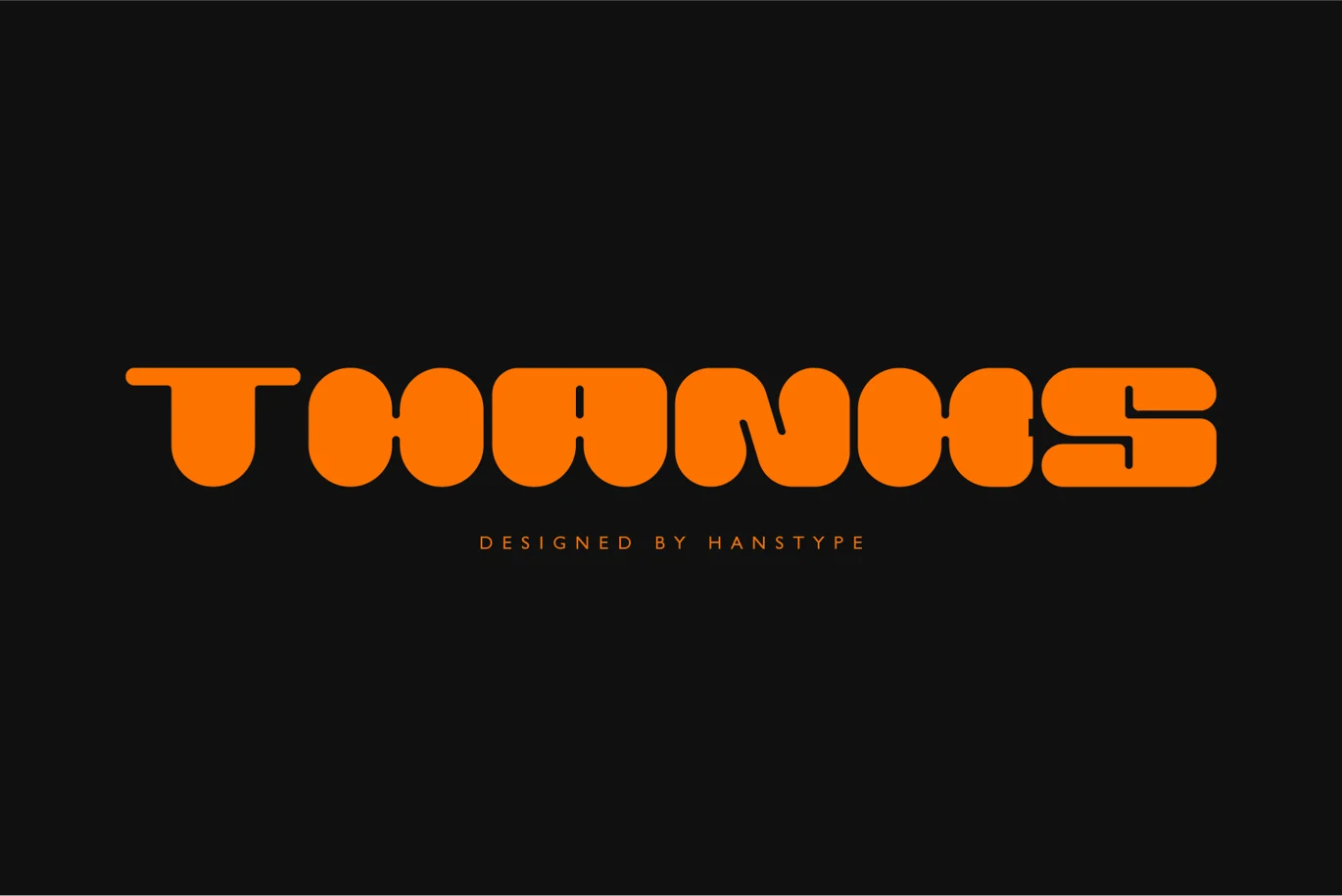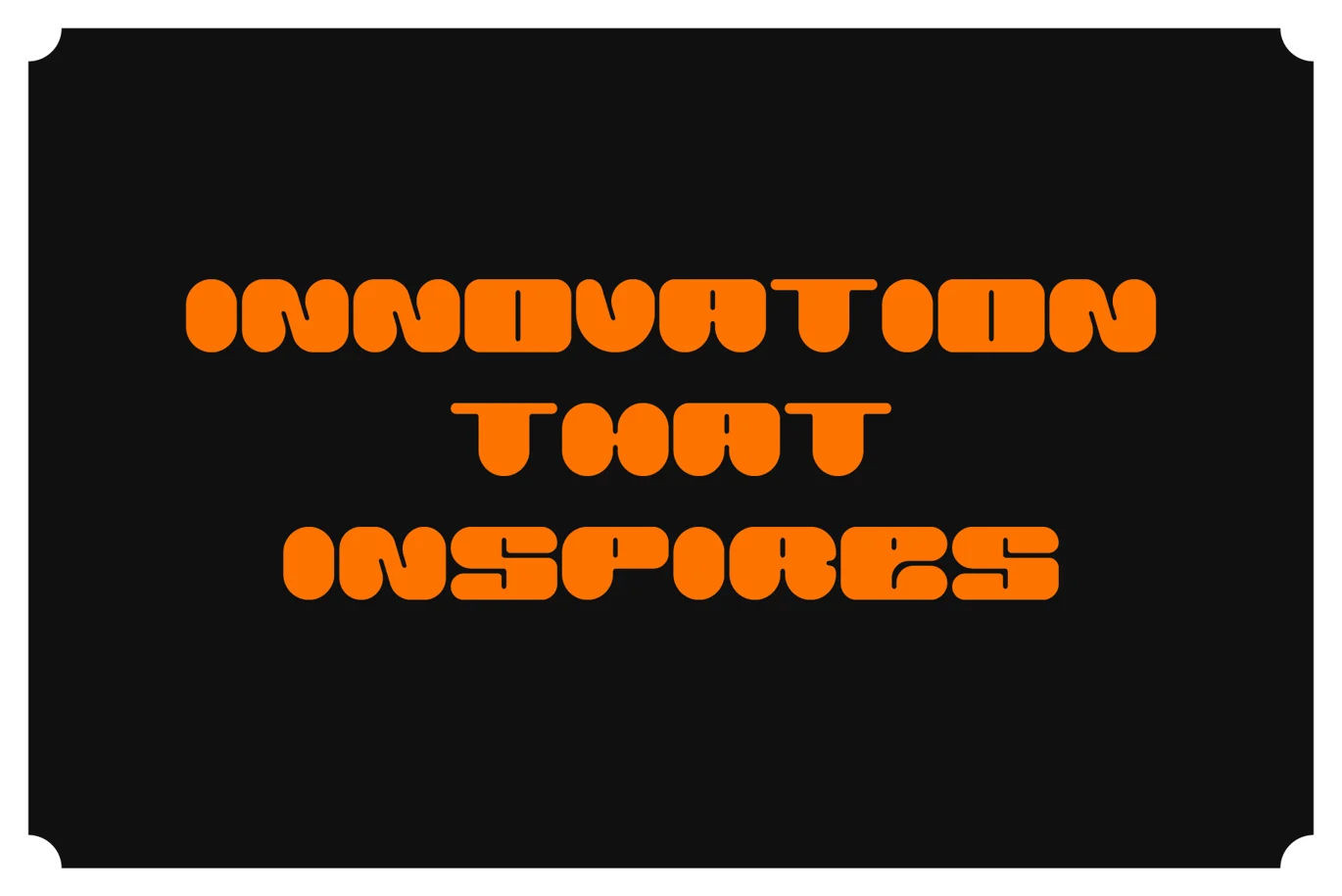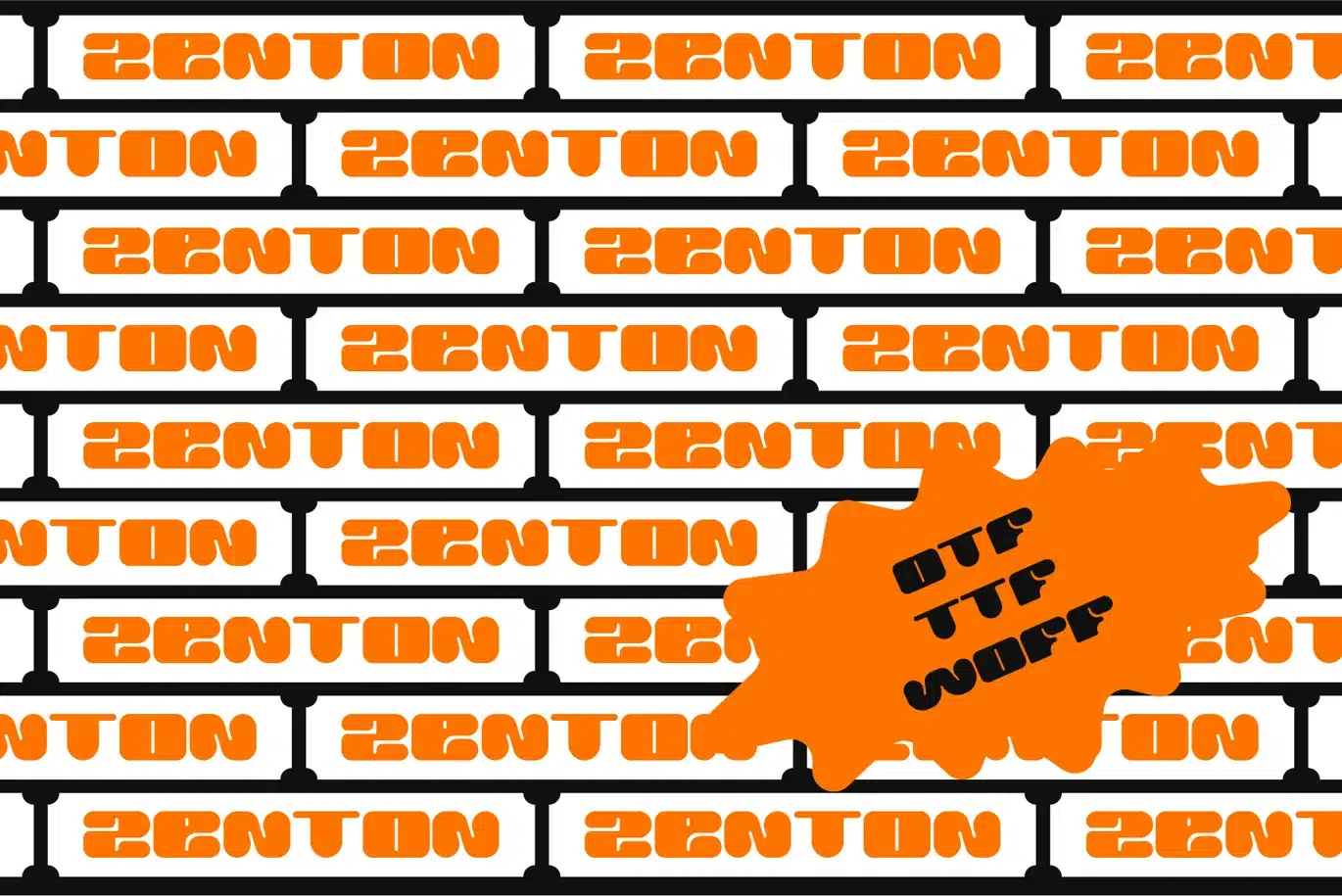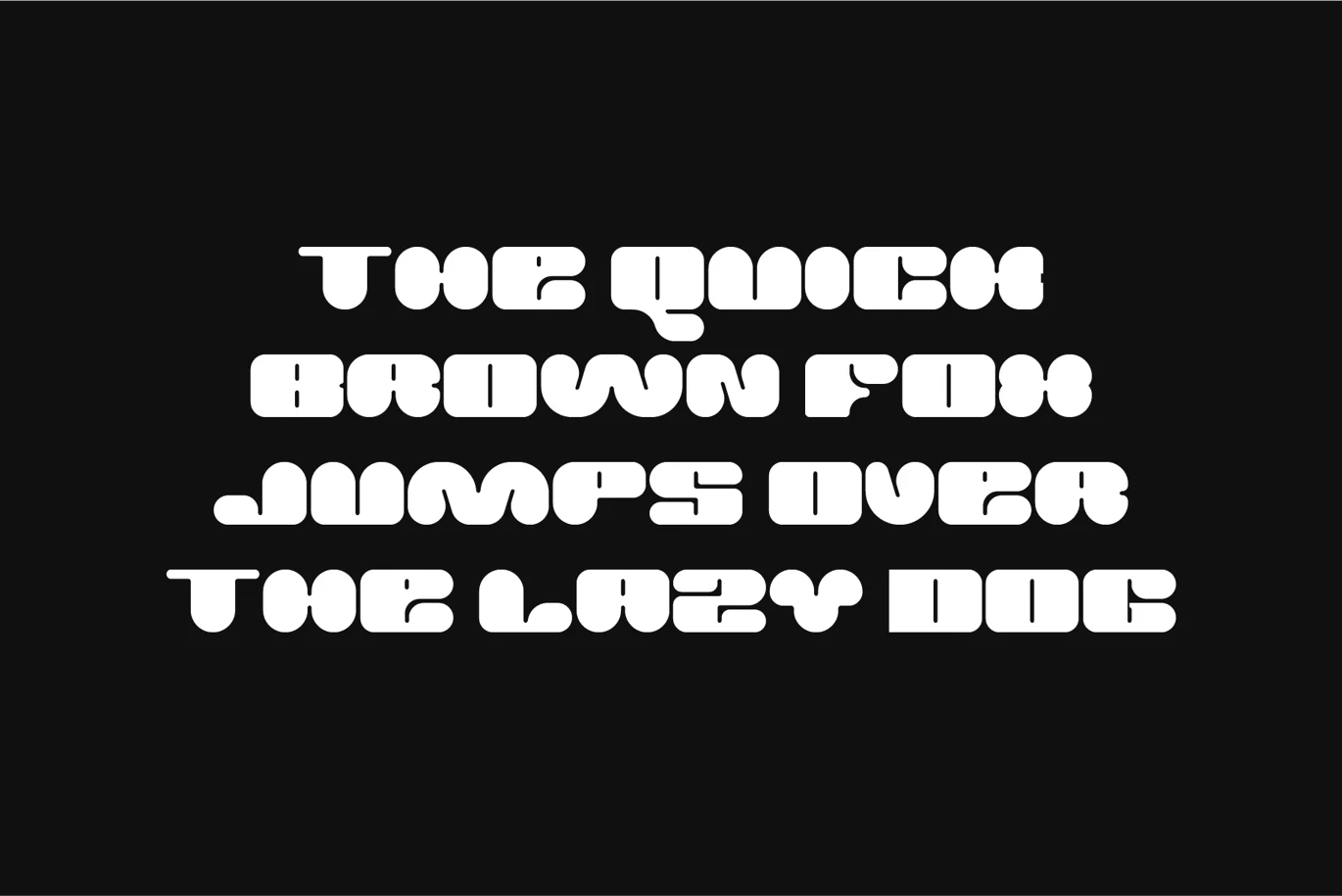
Zenton – Bold Display Font
Zenton is a bold font with a rounded concept, designed to exude strength and modernity while maintaining a soft, approachable vibe. Its bold weight makes it highly legible and impactful, making it perfect for use in prominent headlines, logos, and branding elements that need to capture attention.